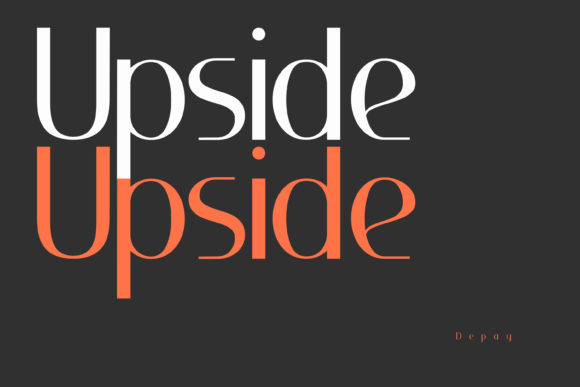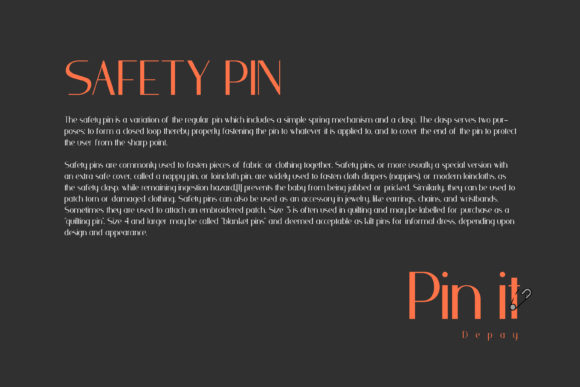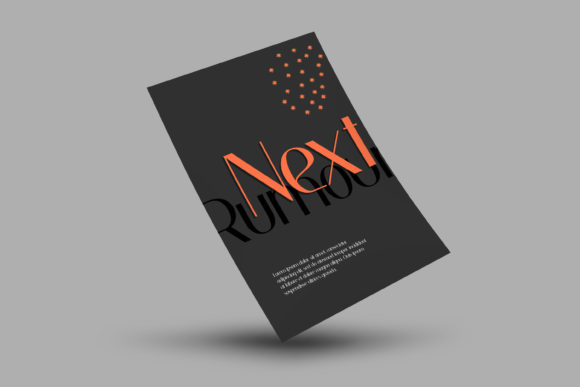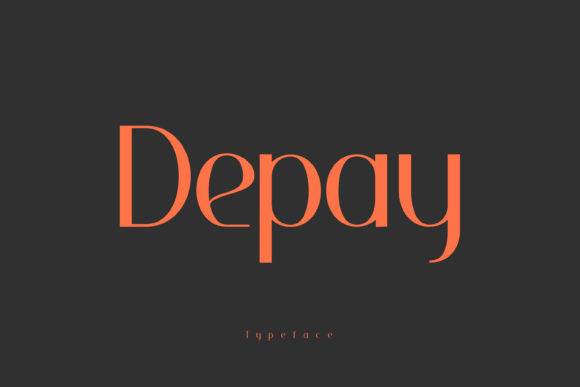
Introducing Depay Font: Elevate Your Crafting Ideas with Elegance and Modernity
In the world of crafting, design, and branding, the right font can make all the difference. It’s not just about conveying a message; it’s about doing so with style and impact. This is where Depay Font comes into play, an elegant and modern sans serif font designed to elevate a wide range of crafting ideas, from cards and branding to labels and much more.
The Essence of Depay Font
Depay Font is characterized by its clean lines, modern aesthetic, and the elegance that it brings to any project. As a sans serif font, it offers a contemporary look that is versatile and highly legible, making it perfect for various applications. Whether you’re working on a greeting card, a brand identity, or product labels, Depay Font ensures that your message is not only clear but also stylishly presented.
One of the standout features of Depay Font is its versatility. It can be used across a multitude of projects, including:
- Cards: Add a touch of sophistication to your greeting cards, making them stand out.
- Branding: Create a strong brand identity with a font that communicates elegance and modernity.
- Labels: Elevate your product labels with a stylish font that captures attention.
- And More: From digital content to print materials, Depay Font can be confidently added to a wide array of creative projects.
Why Choose Depay Font?
There are several reasons why Depay Font should be your go-to choice for your next project:
- Elegance: It brings an unmatched level of elegance to any project.
- Modernity: Its contemporary look ensures your designs feel current and relevant.
- Legibility: The clear and readable design makes it perfect for both digital and print applications.
- Versatility: It can be used in a variety of contexts, from casual crafts to professional branding.
How to Use Depay Font Effectively
To make the most out of Depay Font, consider the following tips:
- Pairing: Experiment with pairing Depay Font with other fonts to create interesting contrasts and hierarchies in your designs.
- Size and Weight: Play with different sizes and weights of Depay Font to add depth and emphasis to your text.
- Color: Choose colors that complement the modern and elegant feel of Depay Font, such as monochromatic schemes or soft pastels.
Depay Font is more than just a font; it’s a design tool that can transform your crafting ideas into stunning realities. Its elegance, modernity, and versatility make it an invaluable asset for designers and crafters alike. By incorporating Depay Font into your projects, you’re not just adding text; you’re elevating the entire design experience. So, don’t hesitate to add Depay Font to your favorite creations and be amazed by the outcome.
With Depay Font, the possibilities are endless. Elevate your crafting ideas, enhance your brand’s identity, and let your creativity shine with this elegant and modern sans serif font.